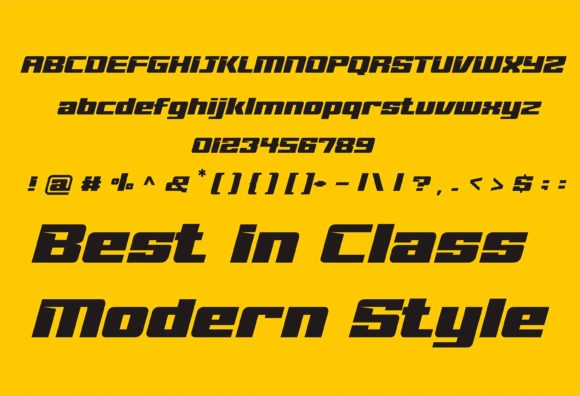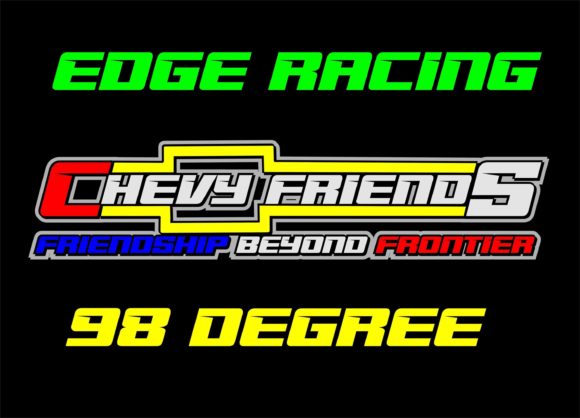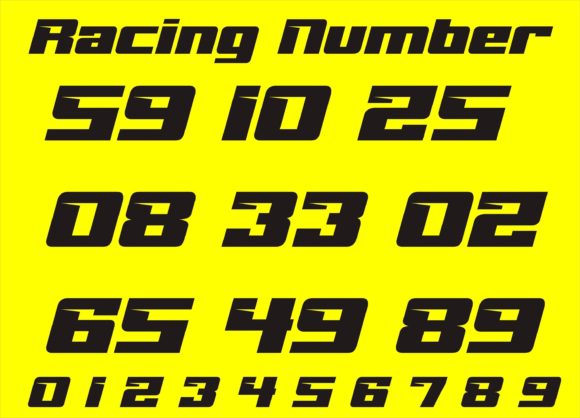
The Ultimate Game-Changer in Design: Best in Class Font
Have you ever stared at a blank canvas, trying to conjure up the perfect idea for your next design project? The blank page can be intimidating, but sometimes all it takes is one spark to ignite your creativity. For many designers, that spark is the Best in Class Font – a versatile and stylish font that’s perfect for making a statement.
This elegant font is designed with speed and performance in mind, making it a popular choice for racing projects. However, its clean lines and modern aesthetic also make it suitable for a wide range of designs, from beautiful stationery to eye-catching social media posts. Whether you’re a seasoned designer or just starting out, the Best in Class Font is a valuable addition to your toolkit, offering endless possibilities for creative expression.
Best in Class Font Features
- Unique Character Set: Includes over 1,000 glyphs, including a wide range of language-specific characters, symbols, and ornaments.
- Font Weight and Style: Offers 12 font weights, ranging from Light to Black, and 7 font styles, including Italic, Oblique, and Small Caps.
- Kerning and Ligatures: Features advanced kerning and ligature systems for improved readability and aesthetic appeal.
Design Review: Best in Class Font
Overall, I have mixed feelings about the Best in Class Font. While it has its strengths, it also has some notable weaknesses. Let’s dive in.
- The font is highly legible, making it easy to read even at smaller sizes.
- The font family is extensive, with a wide range of weights and styles to choose from.
- The font is highly customizable, with options to adjust line height, letter spacing, and more.
- The font feels a bit too generic and lacks personality.
- Some users may find the font to be too modern or trendy, which may not appeal to more traditional tastes.
- The font is not optimized for certain screen sizes or resolutions, which can lead to pixelation or blurriness.
Overall, the Best in Class Font is a solid choice for many projects, but it may not be the best fit for every situation. With some careful consideration and customization, it can be a great addition to your design toolkit.
Tips for Getting the Most Out of Best in Class Font
Use Best in Class Font for titles, headings, and emphasis to create a visually appealing design.
Pair Best in Class Font with other fonts to create a harmonious typography.
Experiment with different font sizes, colors, and styles to achieve the desired effect.
Best in Class Font is suitable for:
Business presentations and reports
Marketing materials and brochures
Web design and development
Editorial content and publishing